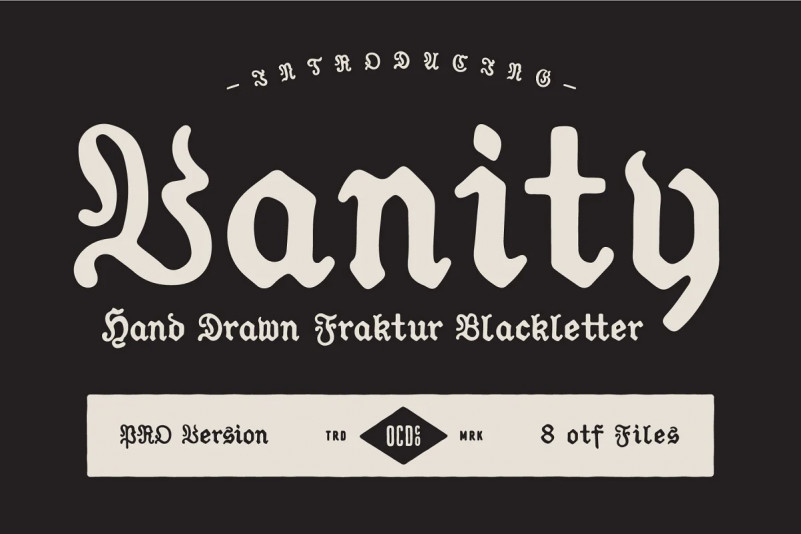
Vanity Font
Vanity is a classic style Fraktur Blackletter that is carefully hand drawn and adapted for better english readability. Vanity comes in 8 carefully crafted styles with a selection of ligatures as well. Give your work that undeniable handmade quality with this cool and unique Blackletter family.